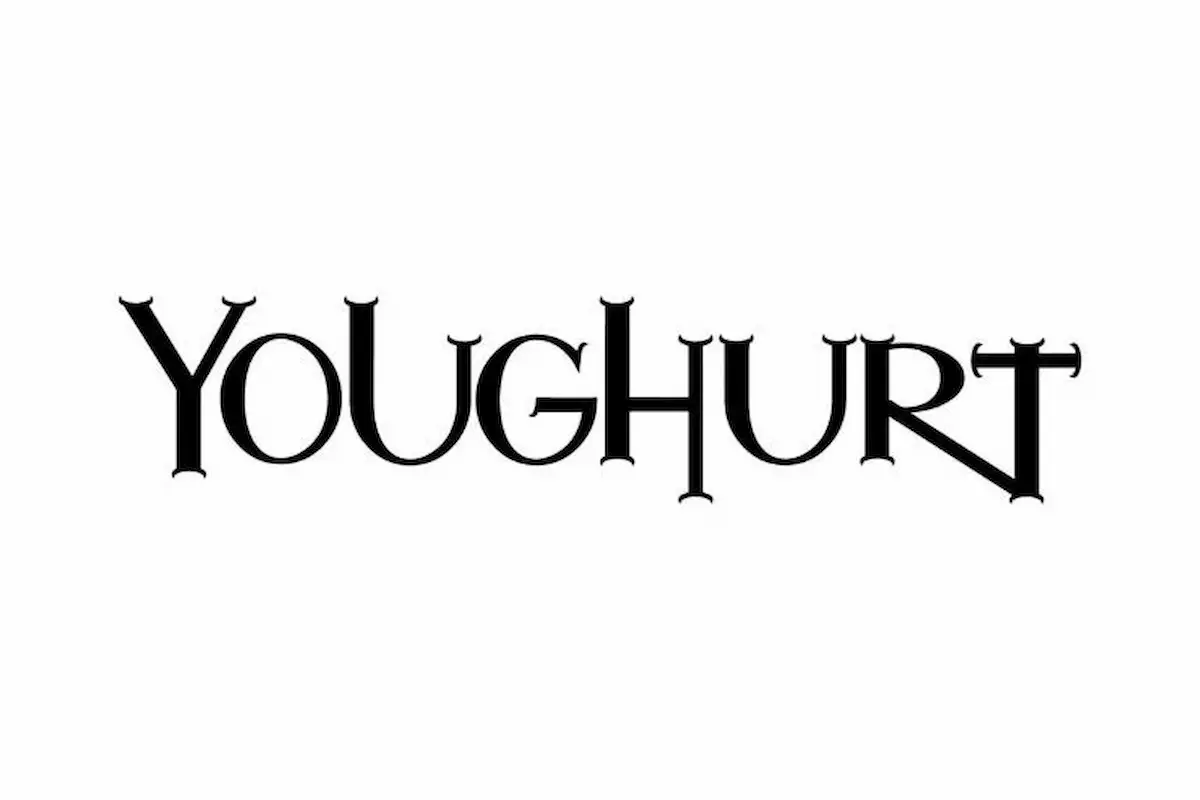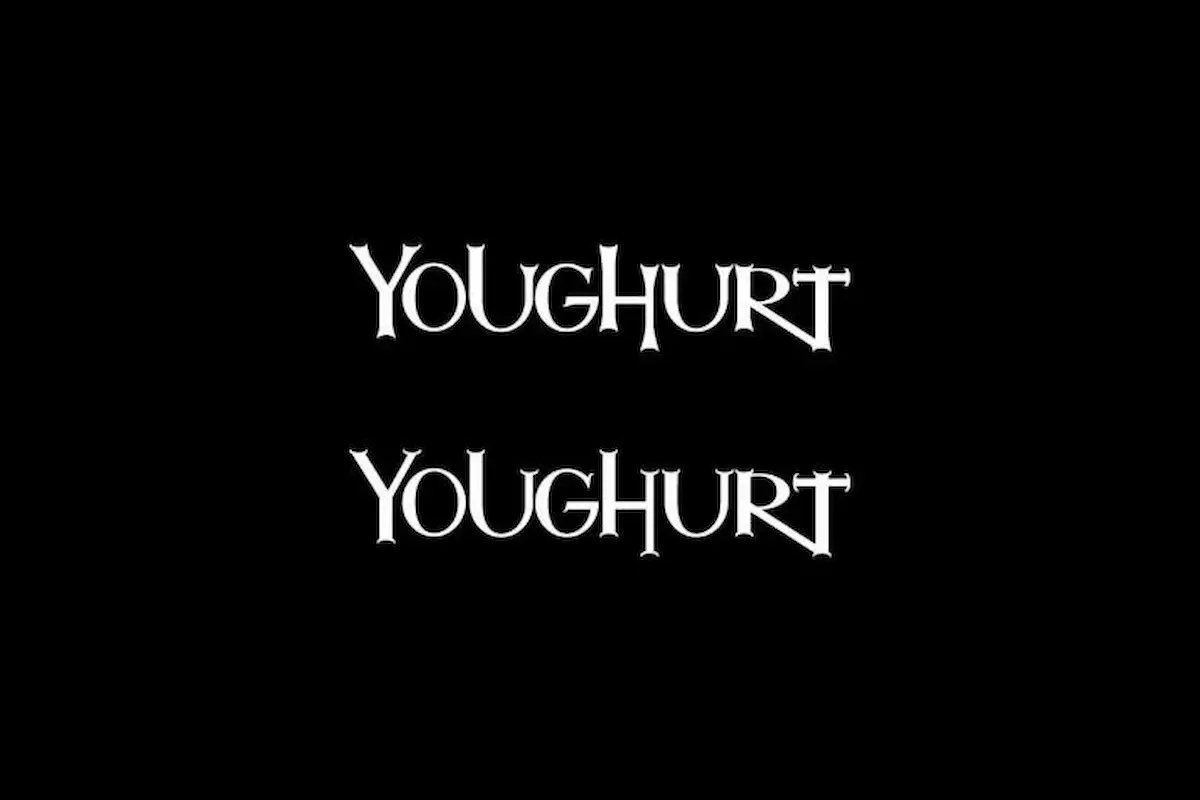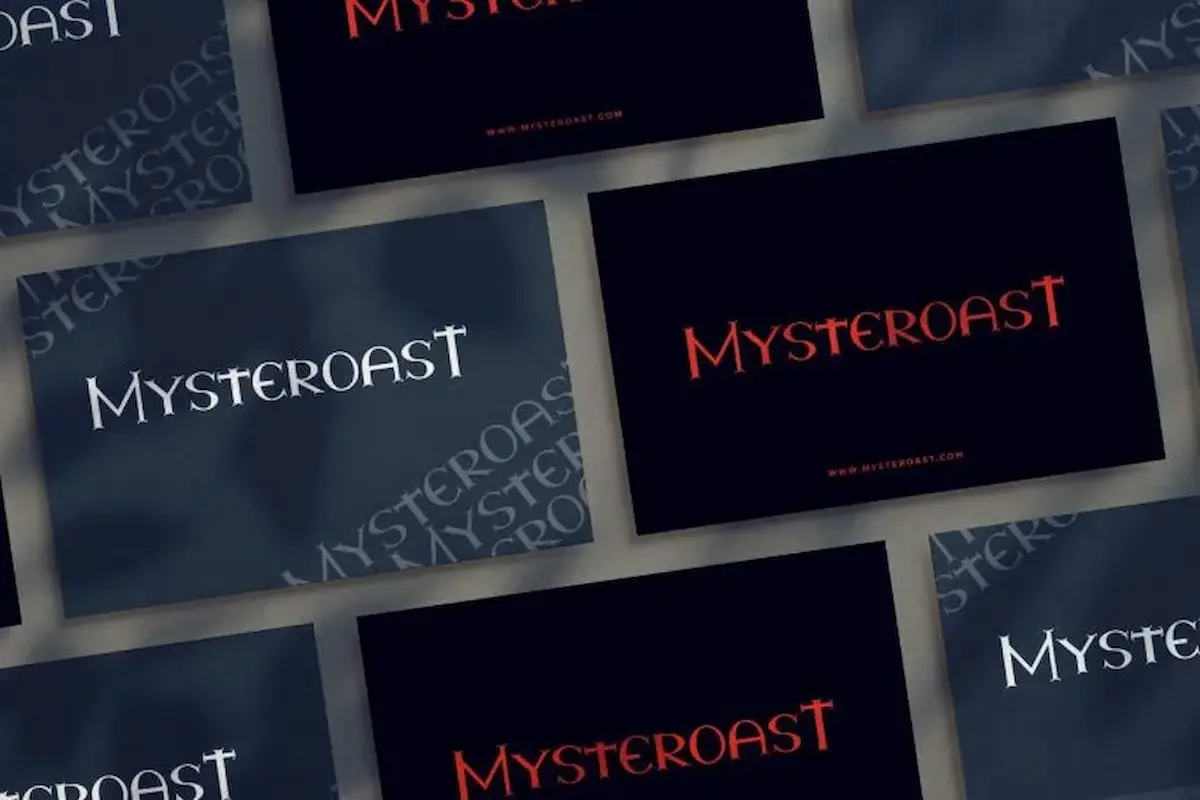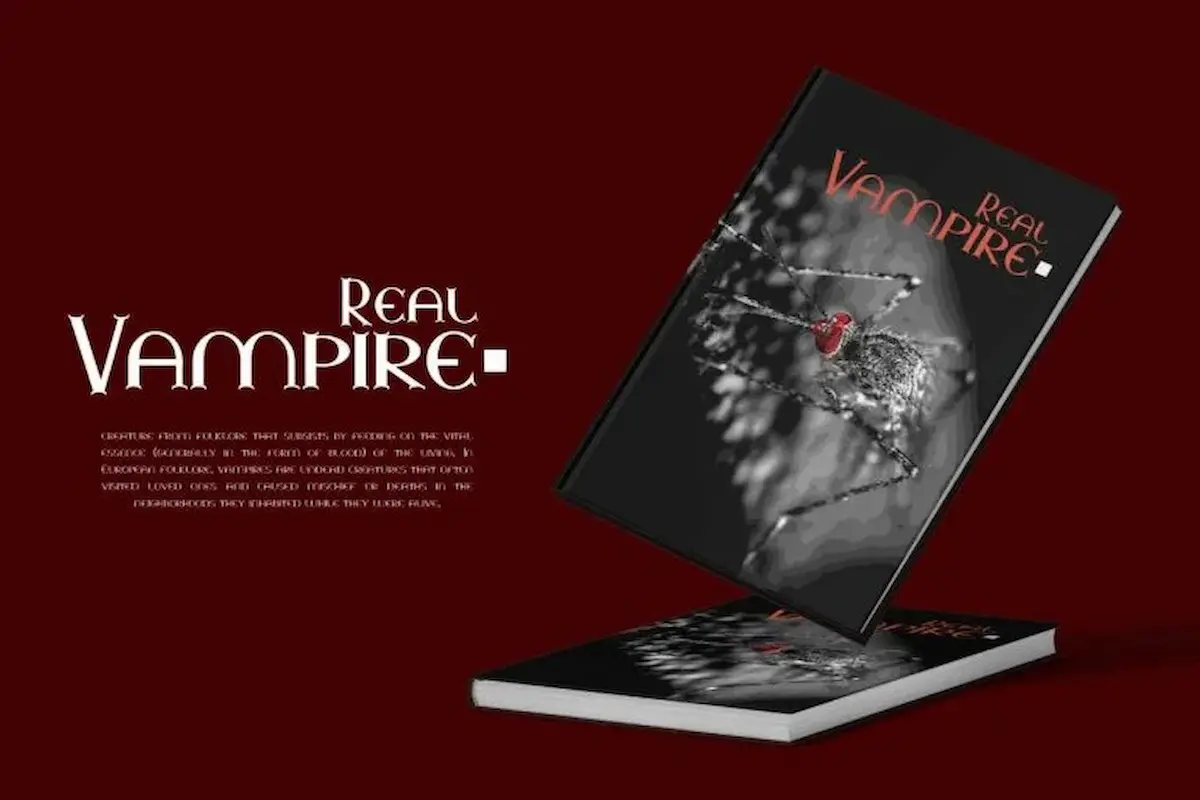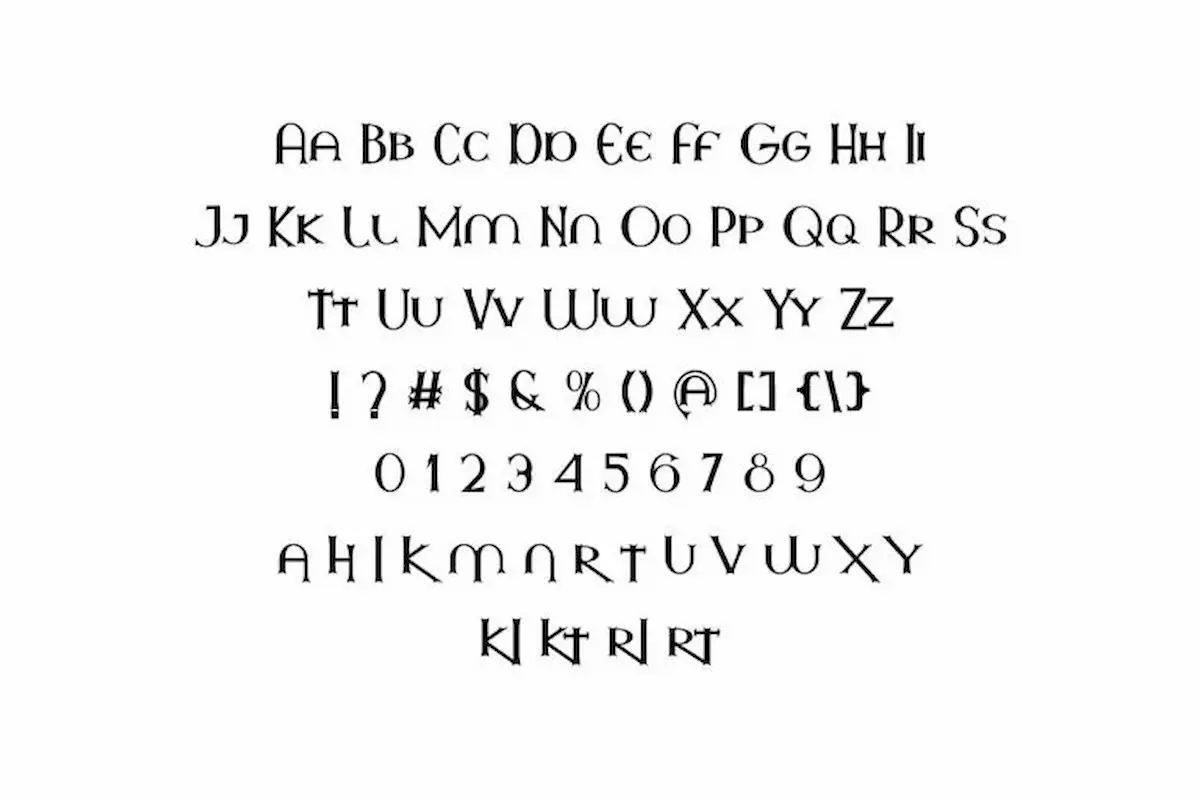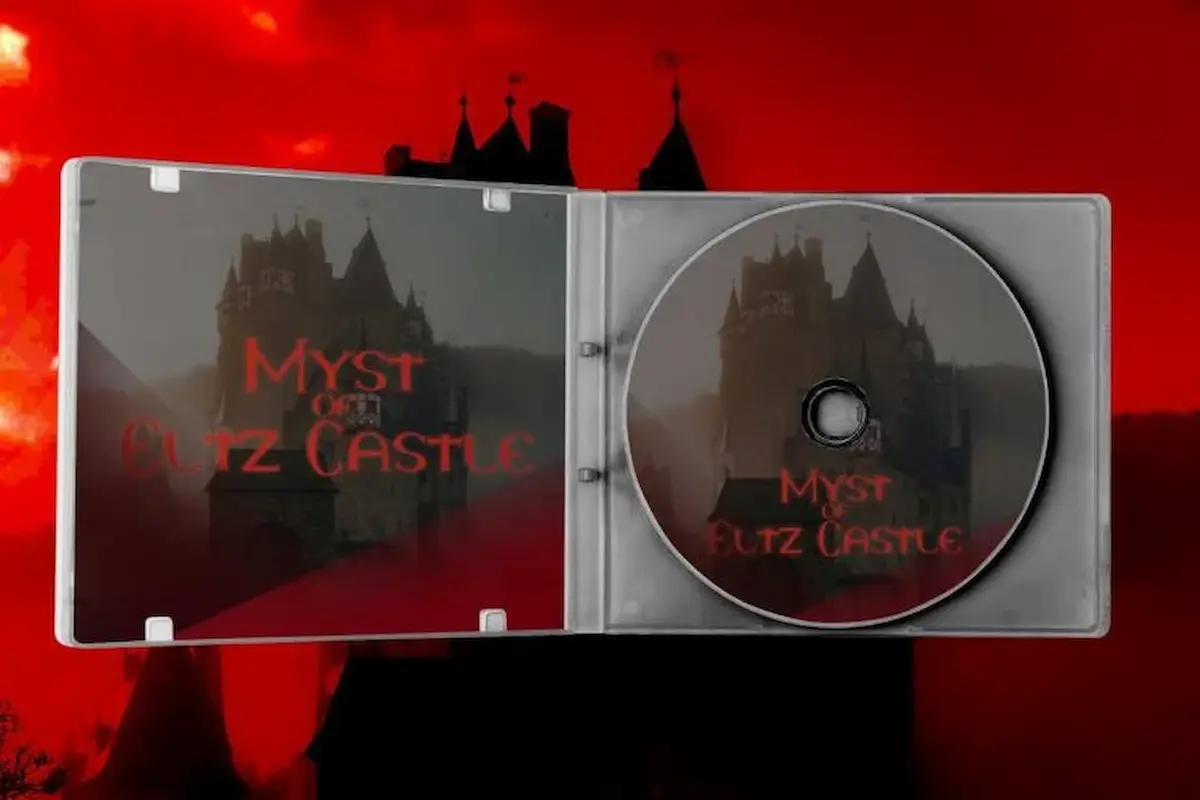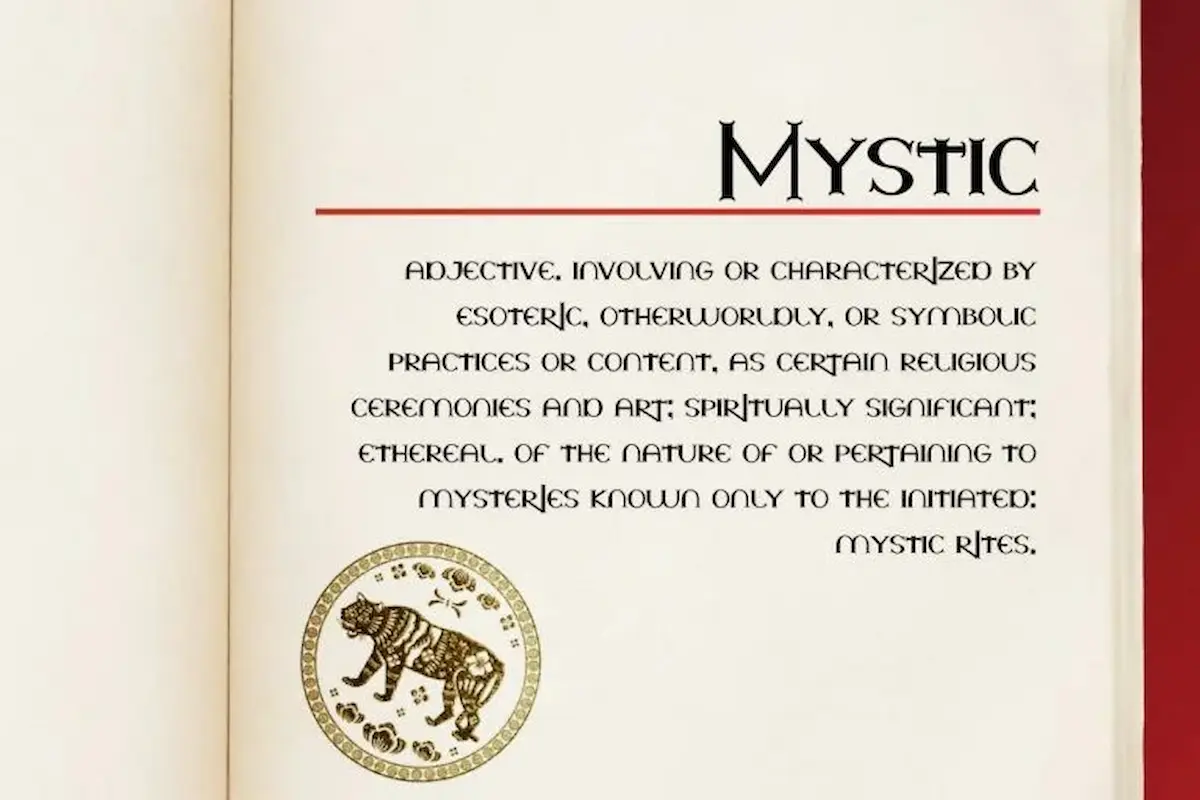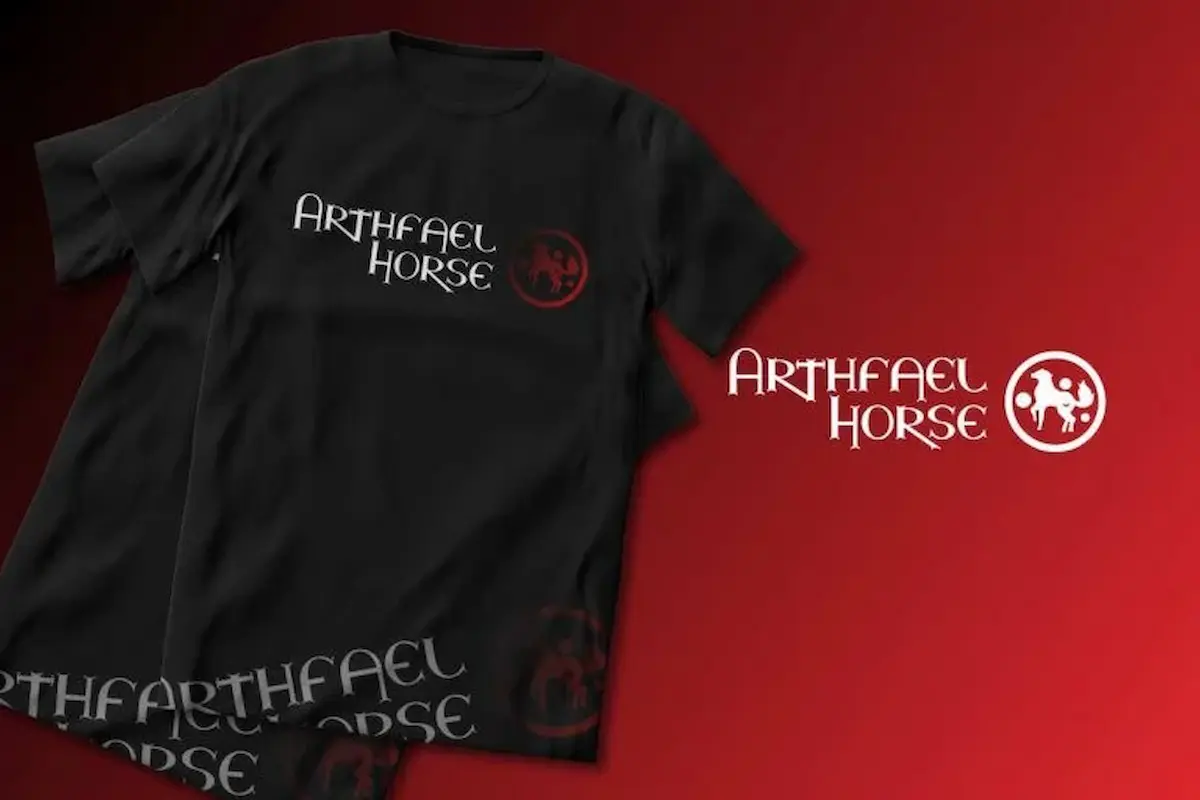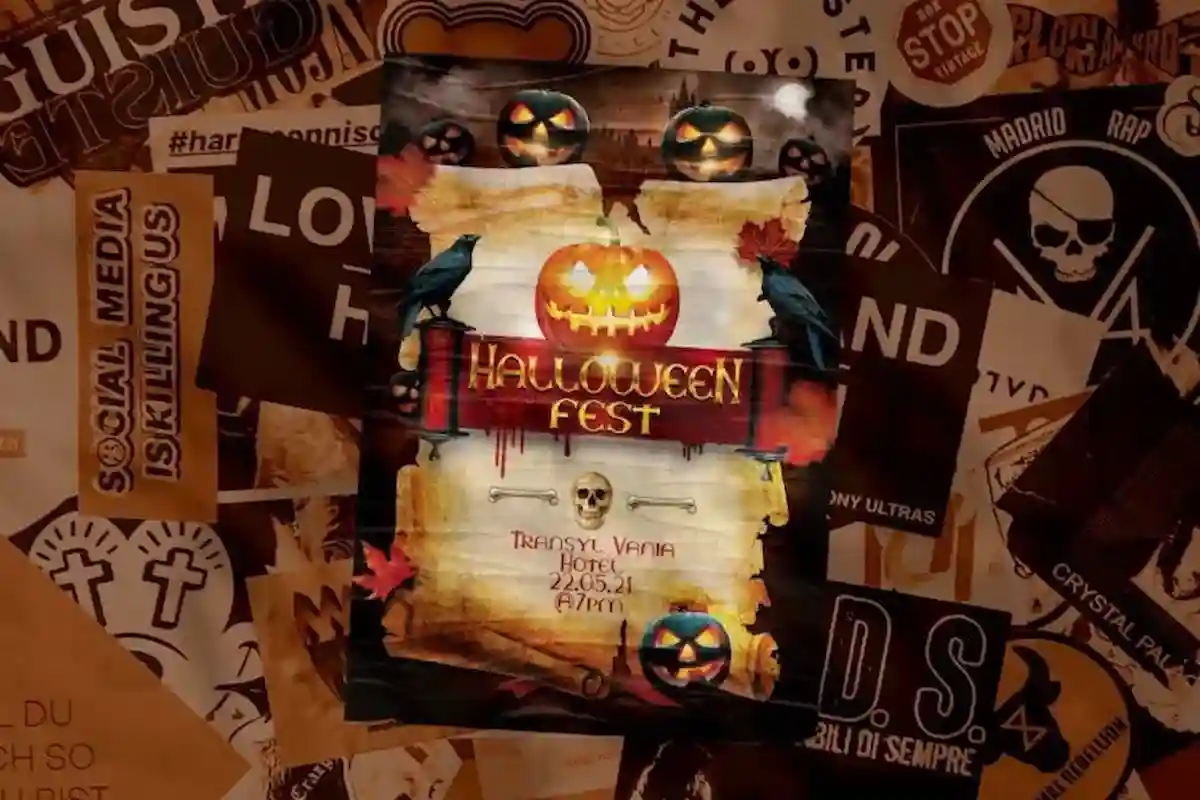
Youghurt Font
Youghurt Font is a classic display font by NihStudio, made in 2021. Youghurt Font will great for cafe, restaurant, music, events, automotive etc.
Youghurt Classic Font is Handcrafted here in our Studio, Indonesia. It will be great for any projects (require extended license) including : branding, logo, stationery, business card, signage, flyer, brochure etc. Youghurt Font comes great for many business industries  : restaurant, cafe, music, wedding, automotive, property etc